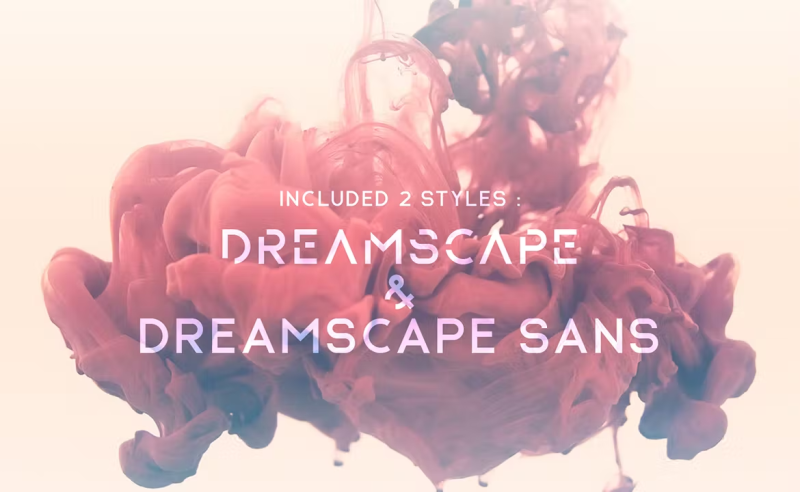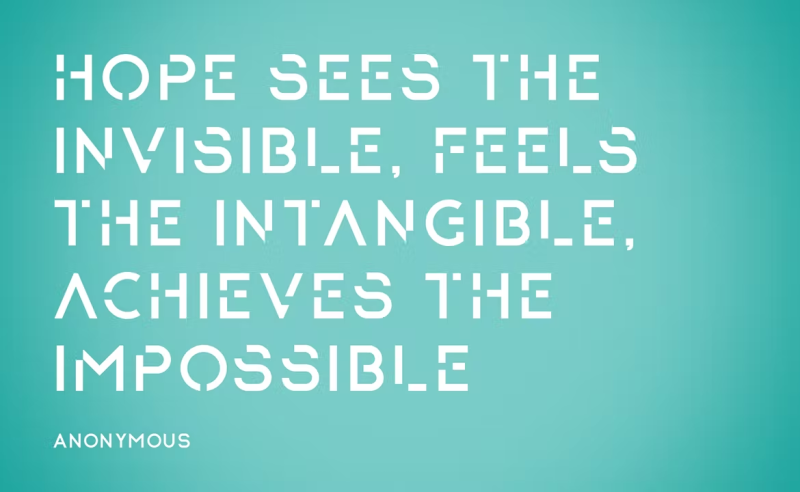
Dreamscape Font
Dreamscape is a font that inspired by sci-fi and future style. Suitable for headline, poster design, t-shirt cd cover album or something that need modern or futuristic looks.
It comes with two styles : Dreamscape & Dreamscape sans
Where Dreamscape Font works best
Dreamscape Font keeps its shape at 14 and 16 pixels, which is where interface text actually lives. Numbers and capitals stay distinguishable in tables.
Presentations are read at a distance; a clean sans with a strong bold is the safest hierarchy you can build in a hurry.
Simple letterforms survive angles, glare and movement, so Dreamscape Font suits door signs, menus boards and exhibition panels.
What kind of work does Dreamscape Font suit?
It sits in the Sans Serif Fonts group and reads as modern, music, professional, sans serif. That makes it a candidate wherever those qualities help: headings, packaging, social graphics and brand work. Set it at the size you plan to use before deciding.